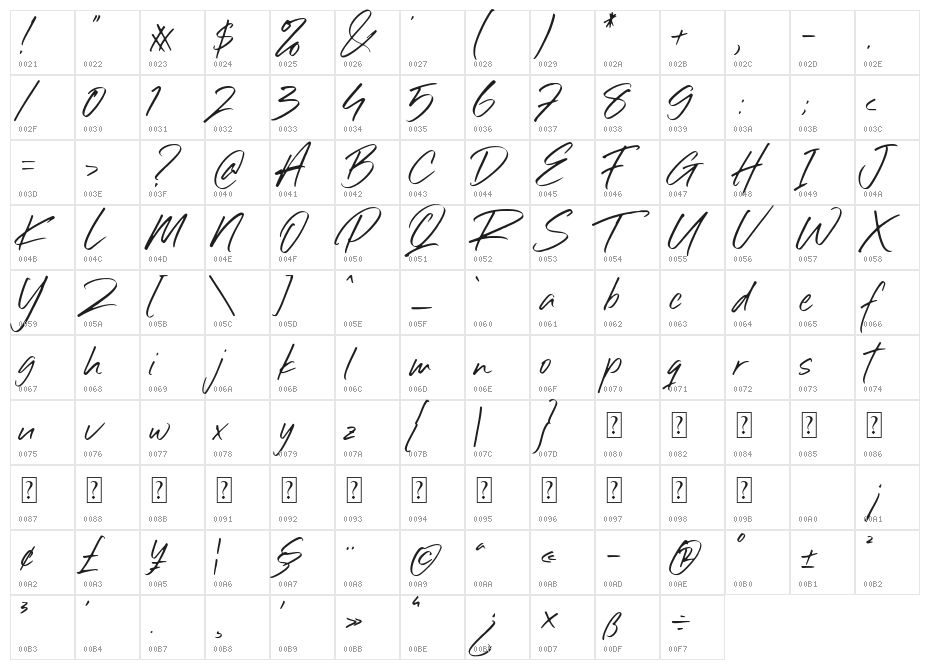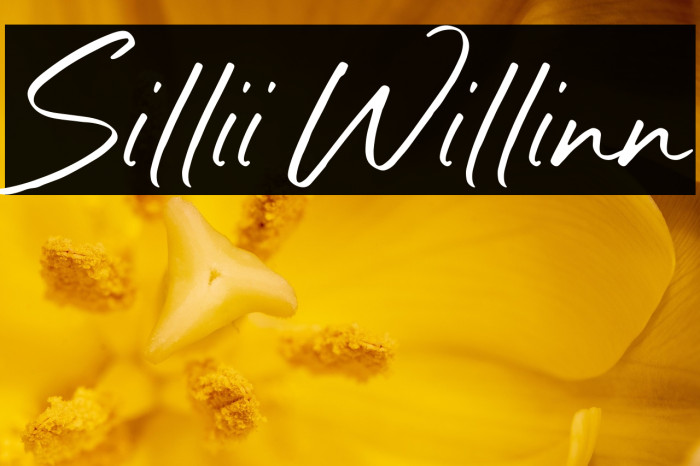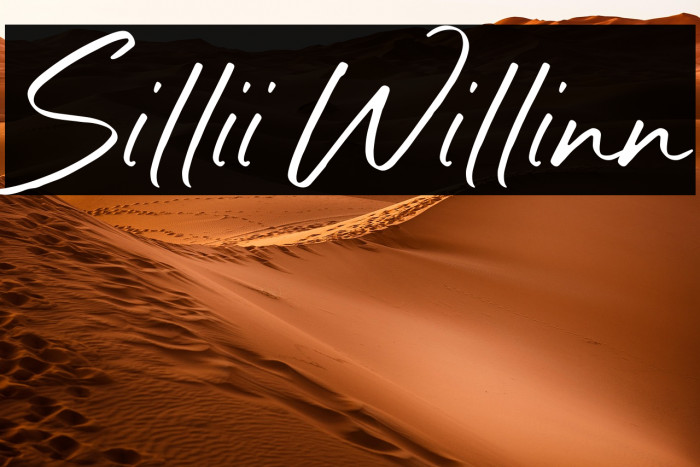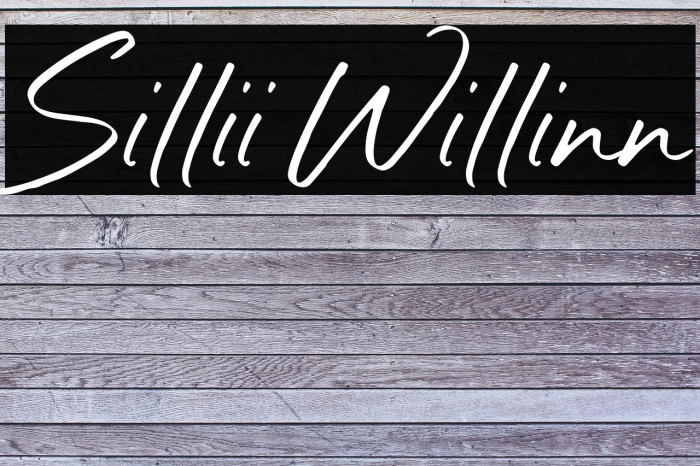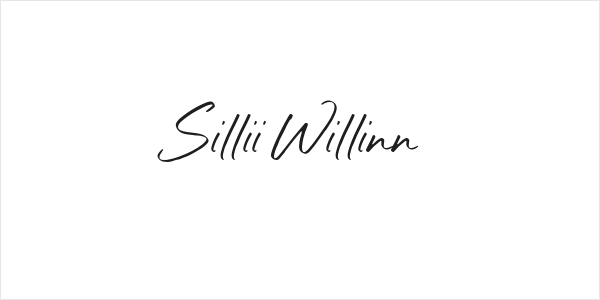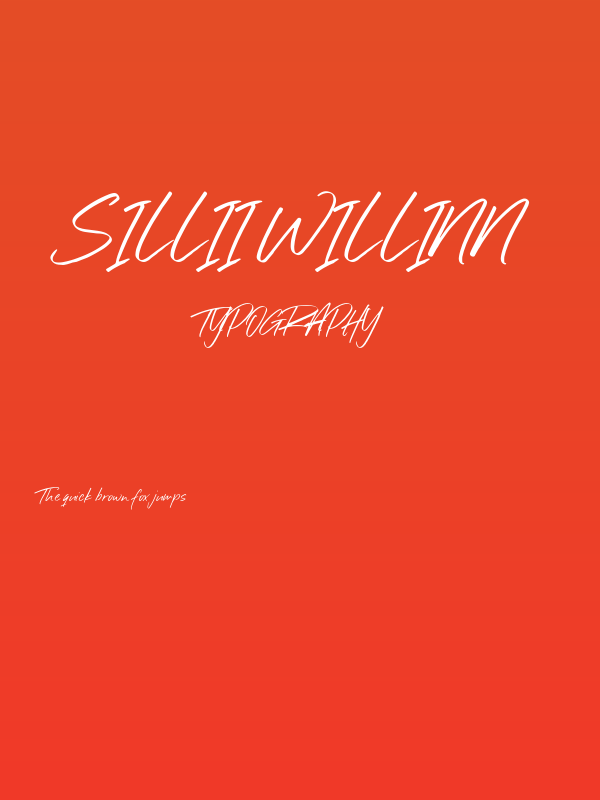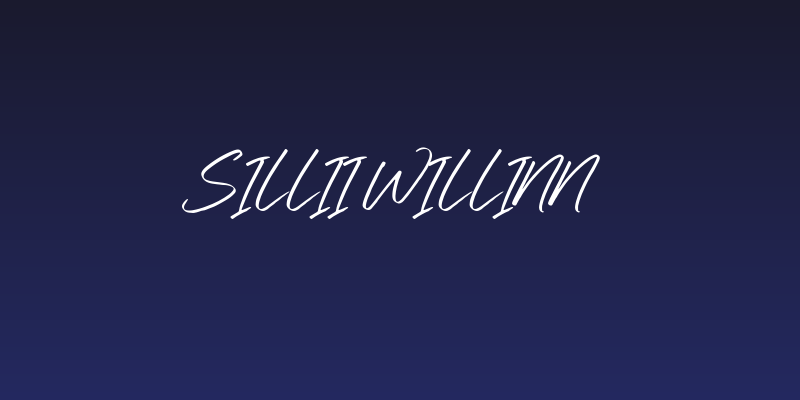
Sillii Willinn Font
Sillii Willinn Description
This font exudes a dynamic and energetic style, characterized by its fluid, cursive script that mimics natural handwriting. The letters are connected with sweeping strokes, giving it a lively and spontaneous appearance. The uppercase letters are bold and prominent, while the lowercase letters maintain a consistent flow, enhancing readability despite the script's inherent complexity. The numbers and special characters follow the same cursive style, ensuring uniformity across all glyphs. This font is ideal for projects that require a personal touch or an artistic flair, such as invitations, greeting cards, or branding materials.
| Proposed Projects | Ideal for invitations, greeting cards, artistic branding, and personal projects. |